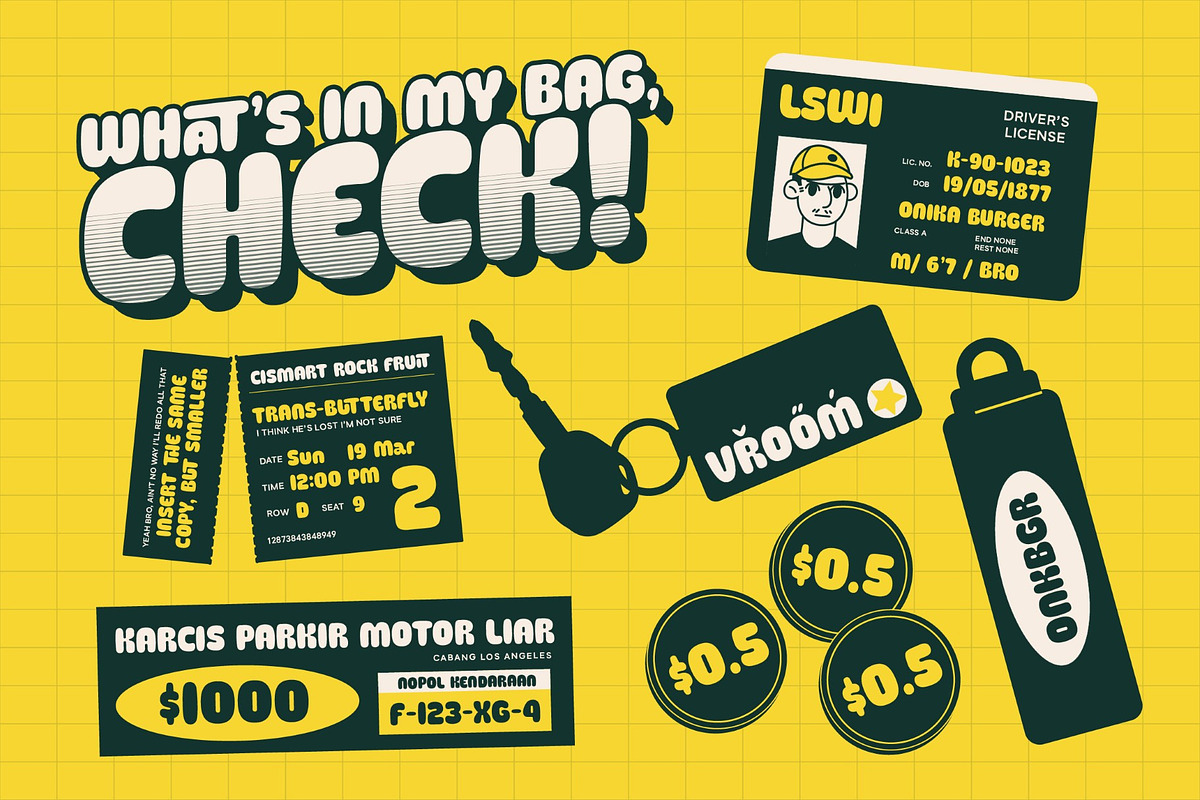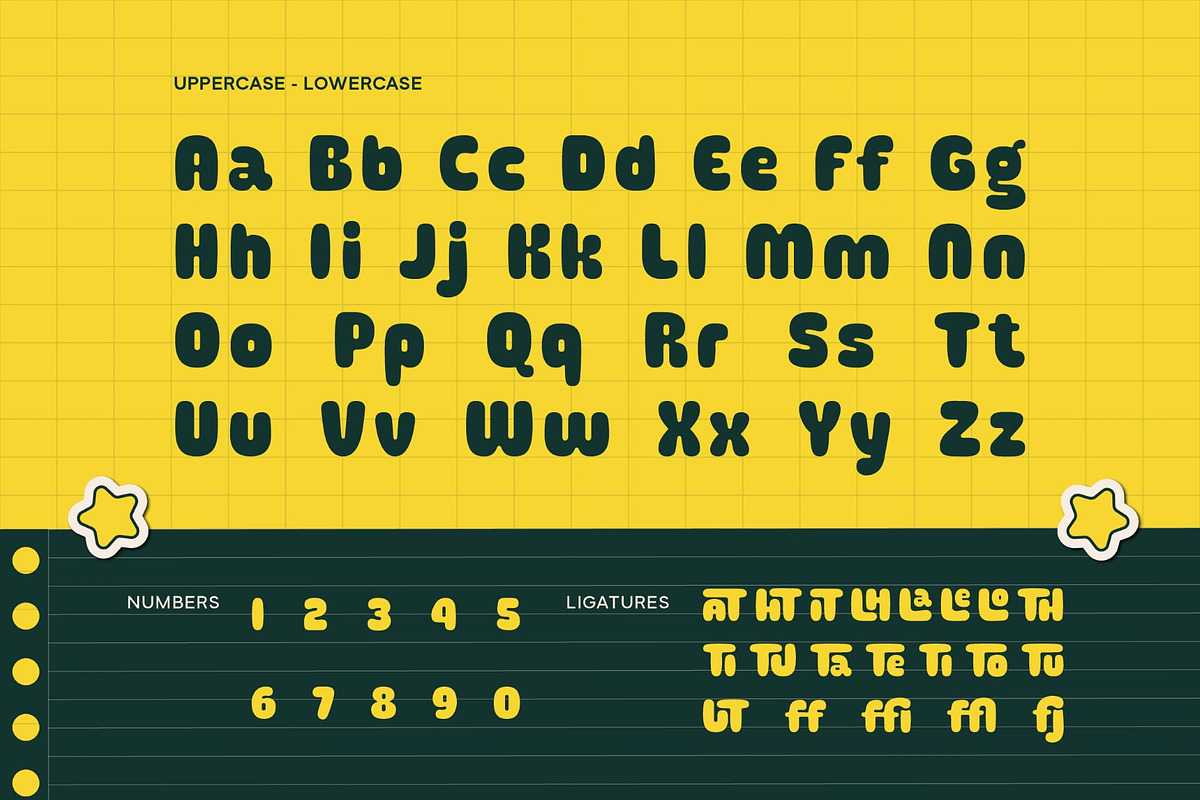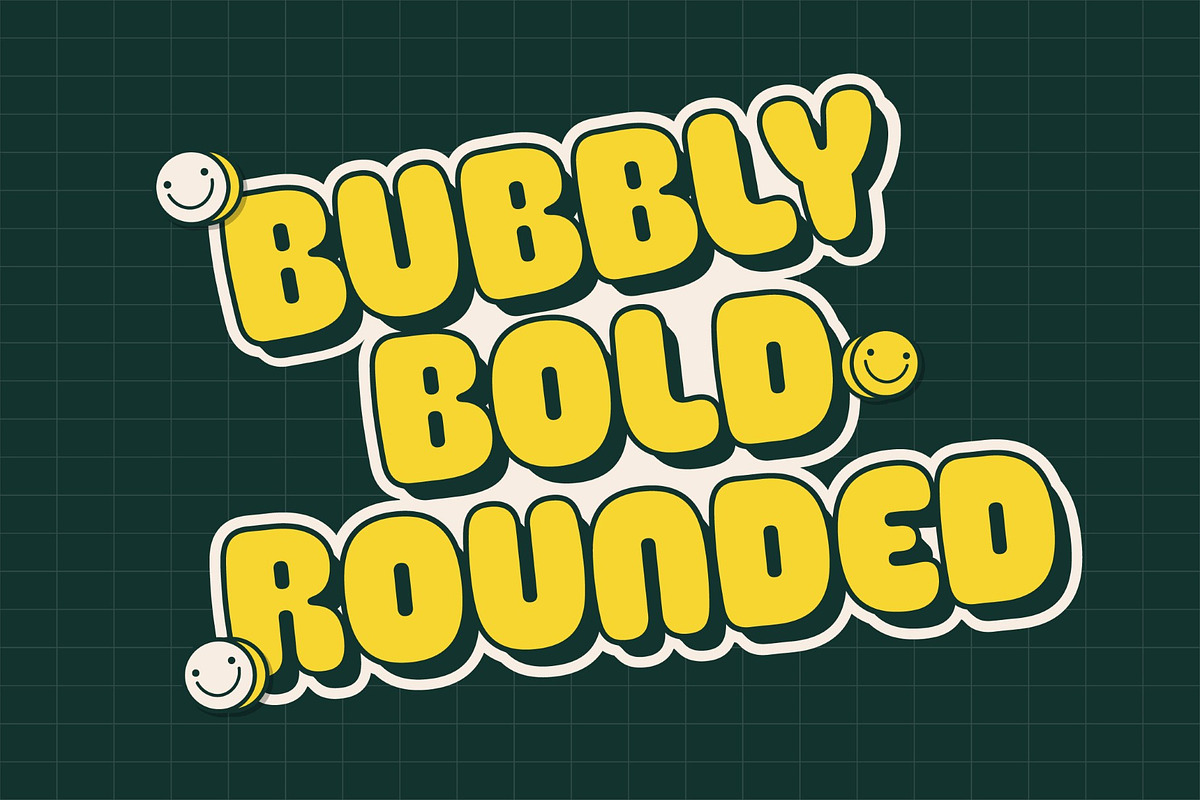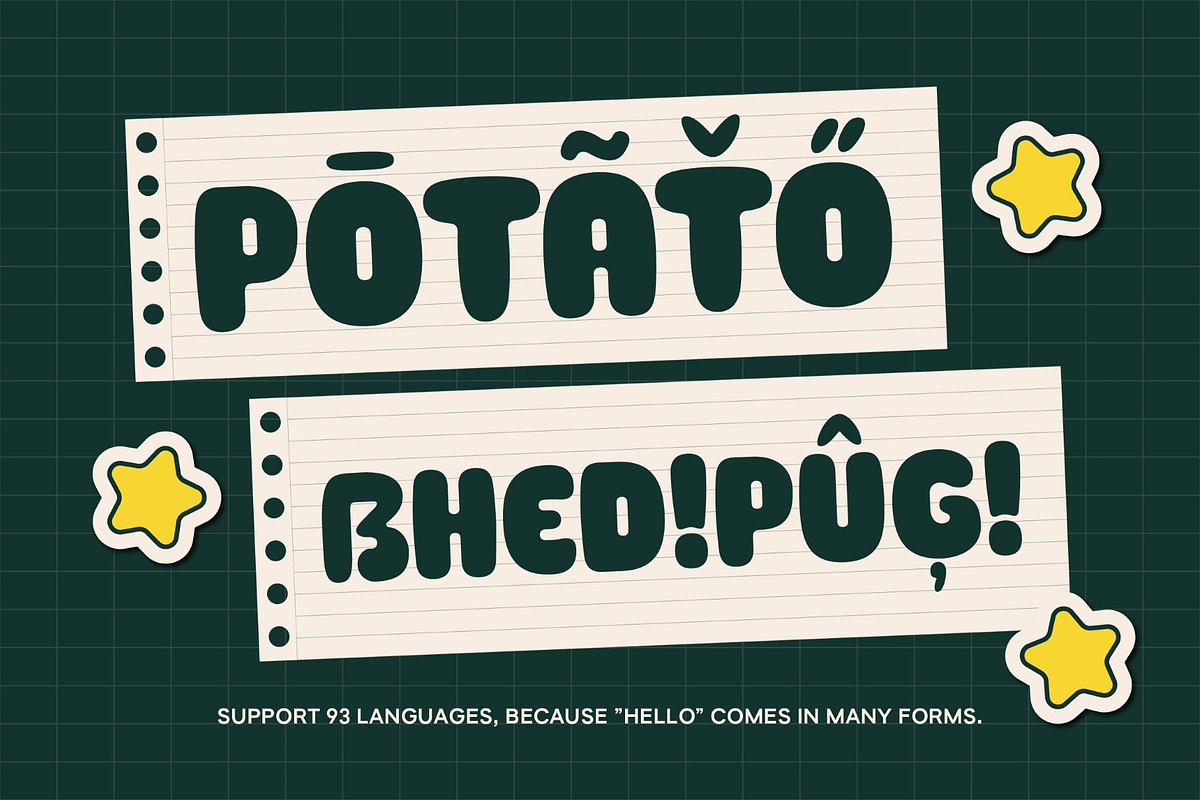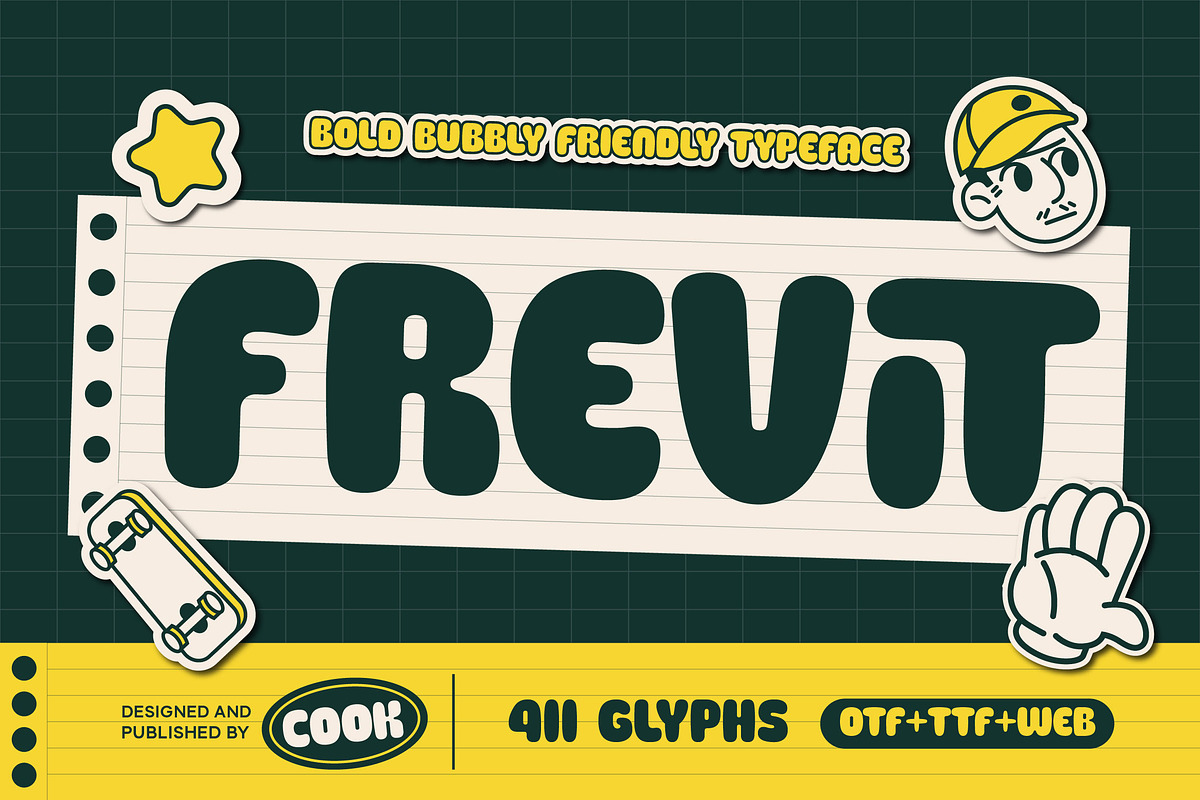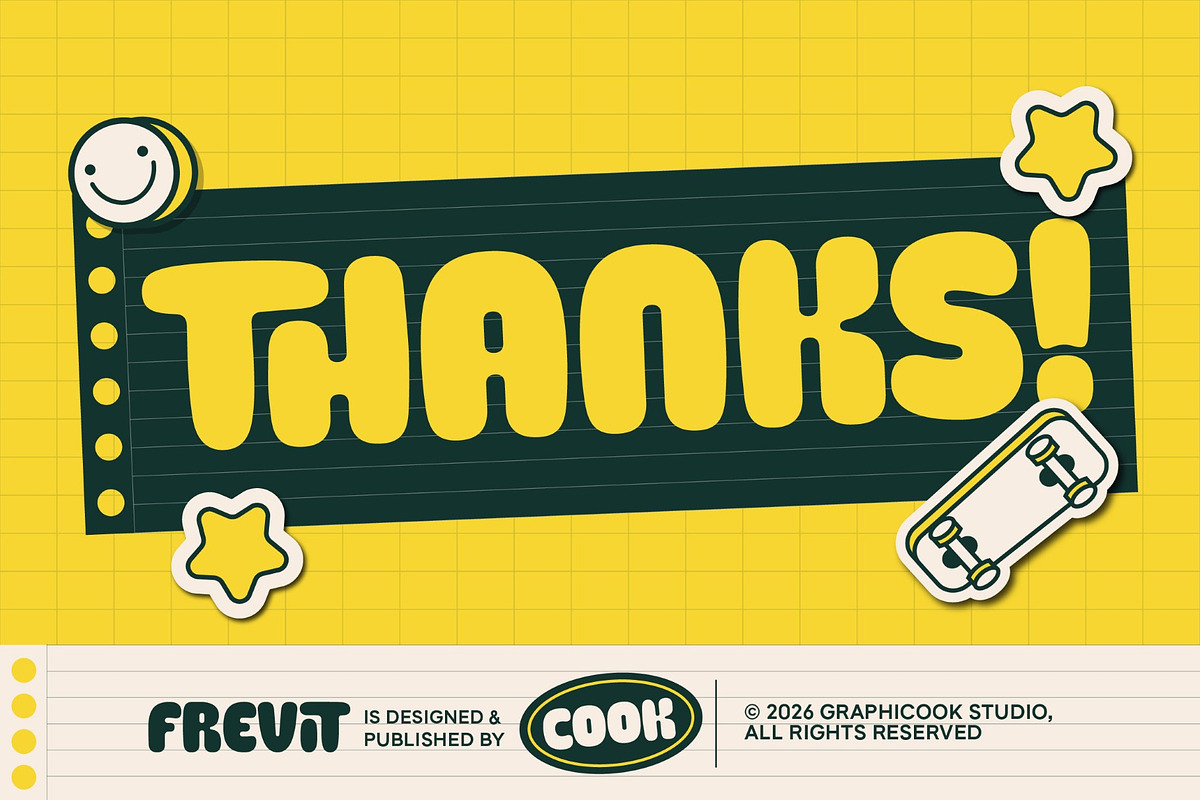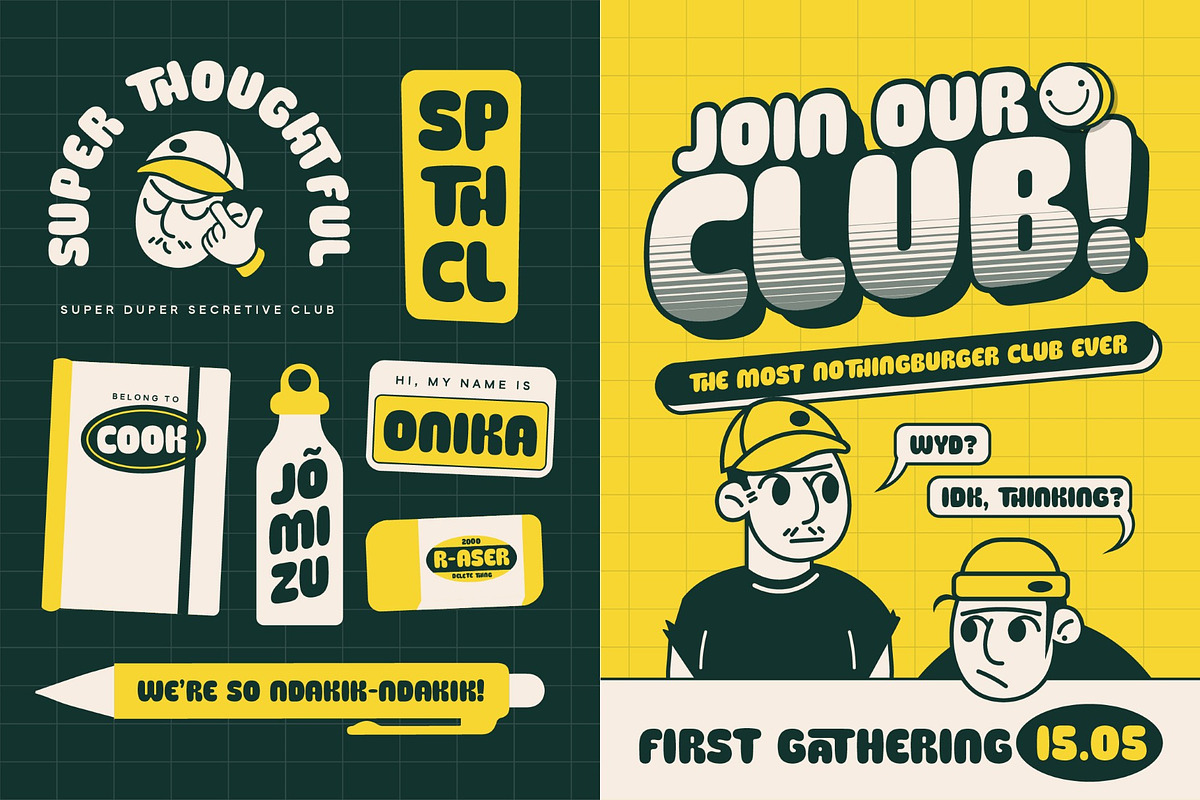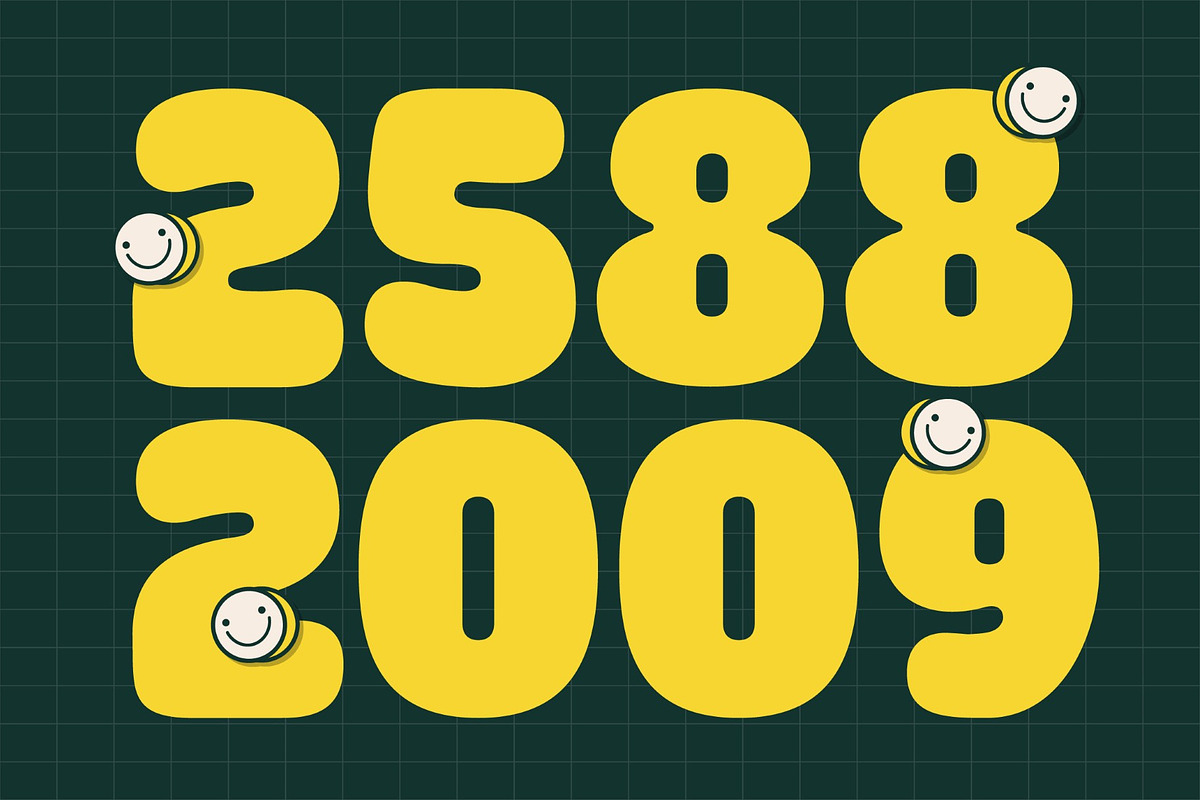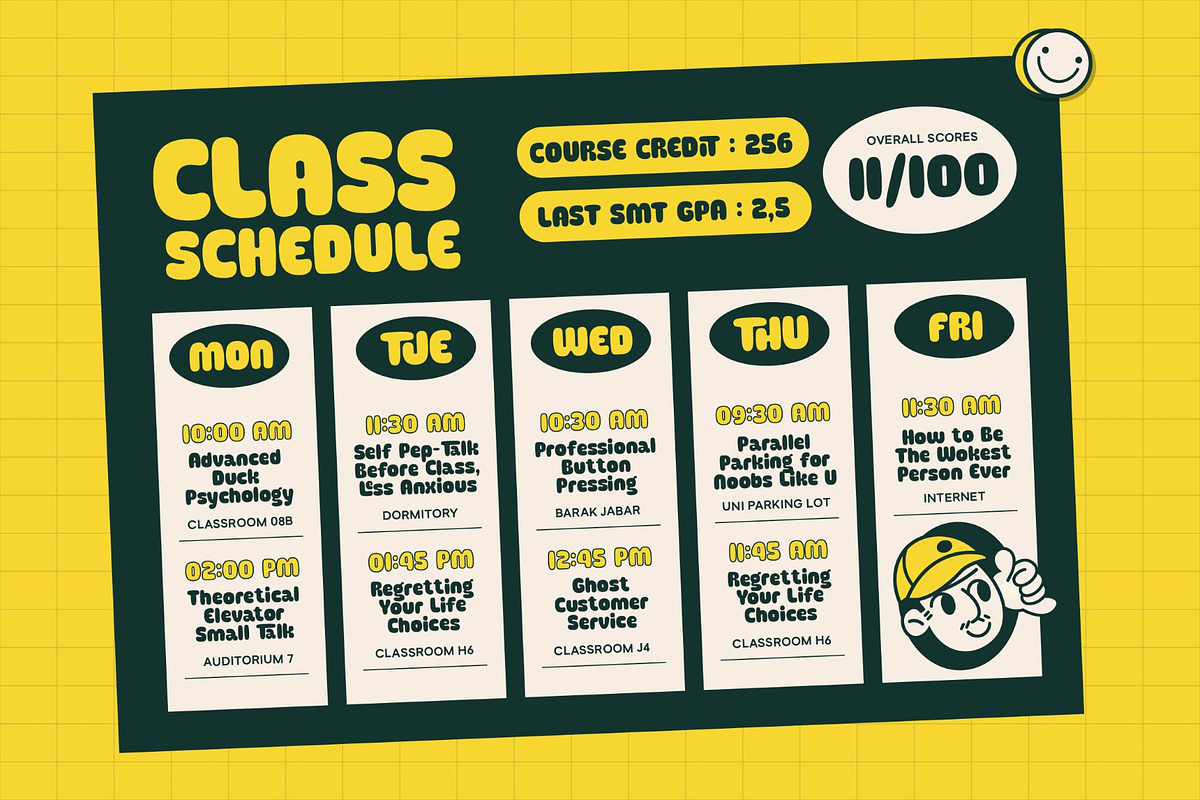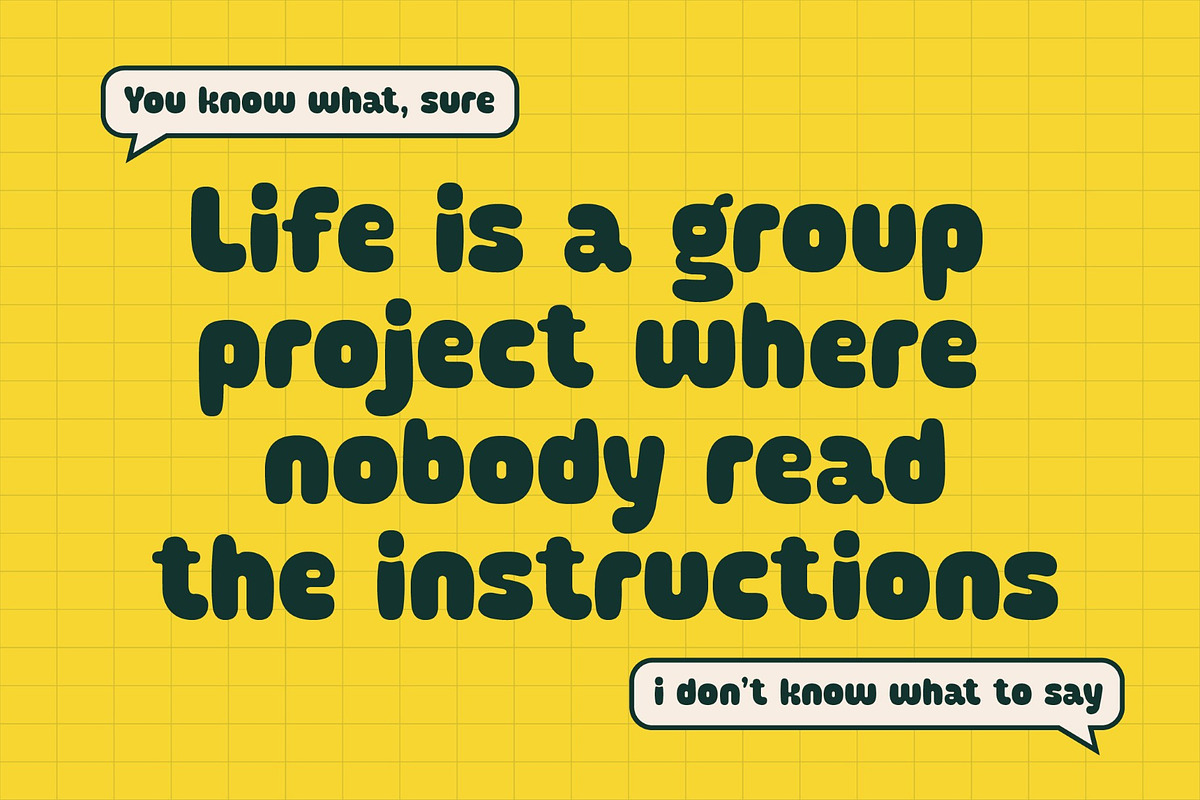
Frevit
Frevit is a bold, bubbly display typeface with a playful and friendly personality. Featuring chunky rounded letterforms and soft organic curves, it delivers a fun, cheerful, and eye-catching look. Perfect for kids-themed designs, playful branding, packaging, posters, social media graphics, stickers, and other creative projects that need a bold and joyful visual touch.
It is perfect for headlines, logotypes, magazines, packaging, quotes, movies, games, cover albums, book covers, and flyers, it's a perfect solution for creating eye-catching designs that stand out in any context.